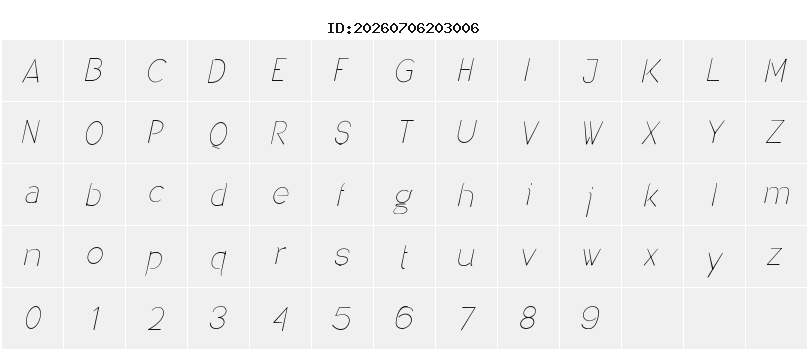
• Font Name: Denigan
• Font Style: Oblique
• Full Font Name: Denigan Oblique
• Designer: Måns Grebäck
About Denigan.ttf
Denigan.ttf is a modern, elegant sans-serif font designed for ultimate readability and visual harmony. Perfect for branding, headlines, web design, and print materials.